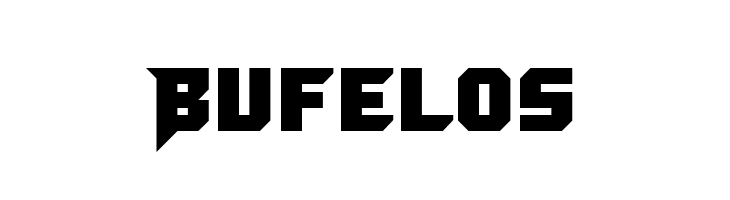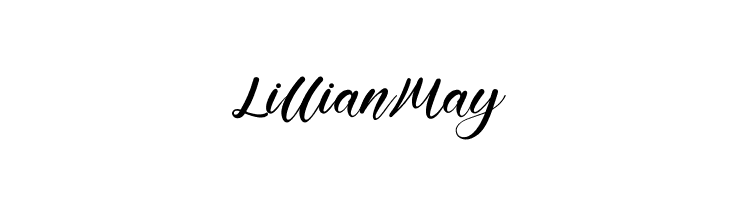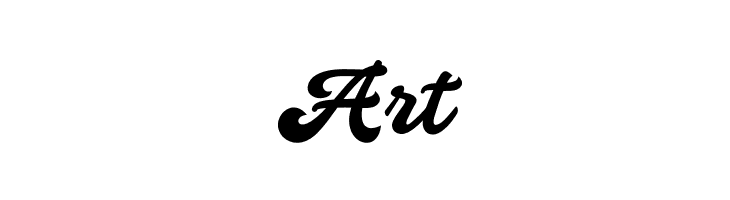
A traditional Blackletter font with intricate, angular designs and strong vertical emphasis.
A playful, whimsical font with rounded and angular elements, perfect for creative projects.
A bold, Gothic-inspired font with sharp, angular characters and a strong vertical emphasis.
A playful, hand-drawn font with a crayon doodle style.
A playful, rounded font with bold, slightly irregular characters.
A playful, hand-drawn font with rounded, bold characters and a whimsical style.
A bold, decorative Gothic-style font with intricate details.
A bold, angular font with a playful and dynamic style.
An ornate, gothic-style font with intricate decorative elements.
A playful, bold font with a bubbly and whimsical design.
A playful, handwritten font with a lively and informal style.
A classic Blackletter style font with ornate and intricate characters.
A playful, bold font with a whimsical, hand-drawn style.
A traditional blackletter font with intricate detailing and historical elegance.
A traditional blackletter font with ornate, medieval-inspired letterforms.
A traditional blackletter font with intricate, ornate letterforms.
A traditional blackletter font with ornate, dramatic letterforms.
A bold and intricate Blackletter font with high contrast and ornate details.
A bold and ornate blackletter font with intricate details and a historical aesthetic.
A bold, ornate Blackletter font with a Gothic, medieval style.
A playful, bold font with a hand-drawn, whimsical style.
A bold, angular font with a geometric and modern design.
A bold, gothic-inspired font with sharp, angular lines and a rebellious style.
A lively, cursive font with elegant, sweeping strokes and playful energy.
A bold, playful font with rounded, whimsical characters.
An elegant, extra bold script font with flowing, cursive letterforms.
An elegant script font with flowing, cursive letters and refined details.
An elegant script font with flowing cursive characters and intricate flourishes.
A dynamic, cursive script font with an elegant, handwritten style.
A bold, expressive script font with elegant, flowing cursive letters.
A bold, dynamic script font with flowing, cursive letterforms.
A bold, decorative font with thick, blocky letterforms and high contrast.